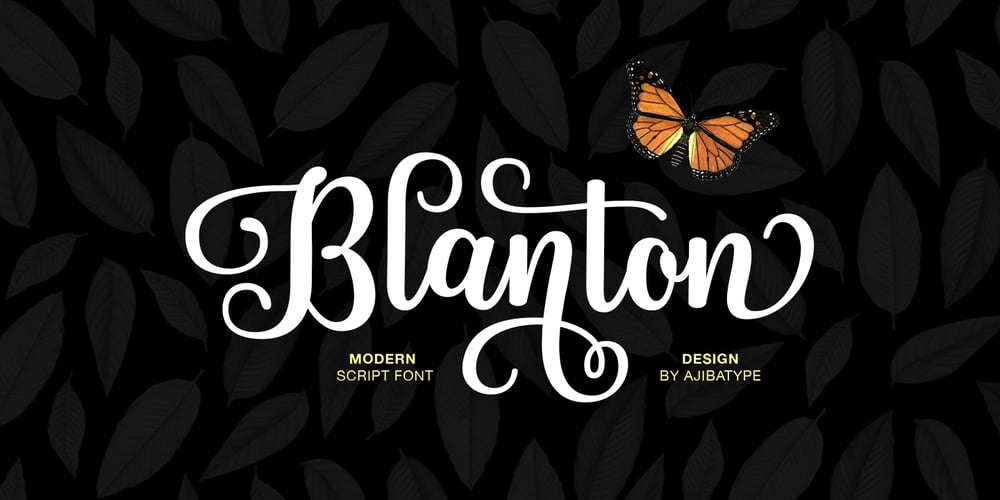
Blanton Script Font Family was designed by Jamhur and published by Ajibatype. Blanton Script contains 3 styles and family package options. Blanton Script is modern script font with dancing up and down the baseline. that comes with lovely alternates. It has a casual and elegant touch. This font is PUA encoded which means you can access all glyphs and swashes with ease! Works perfectly for logos, fashion, stationery, letterpress, magazines, menus, books, invitations, wedding / greeting cards, packaging, labels, apparel, marketing etc.Blanton Script features 730+ glyphs and 517 alternate characters. including initial and terminal letters, alternates, ligatures and multiple language support.To enable the OpenType Stylistic alternates, you need a program that supports OpenType features such as Adobe Illustrator CS, Adobe Indesign & CorelDraw X6-X7, Microsoft Word 2010 or later versions. and there are additional ways to access alternates/swashes, using Character Map (Windows), Nexus Font (Windows), Font Book (Mac) or a software program such as PopChar (for Windows and Mac).Need help? If you need help or advice, please contact me.Thank you!